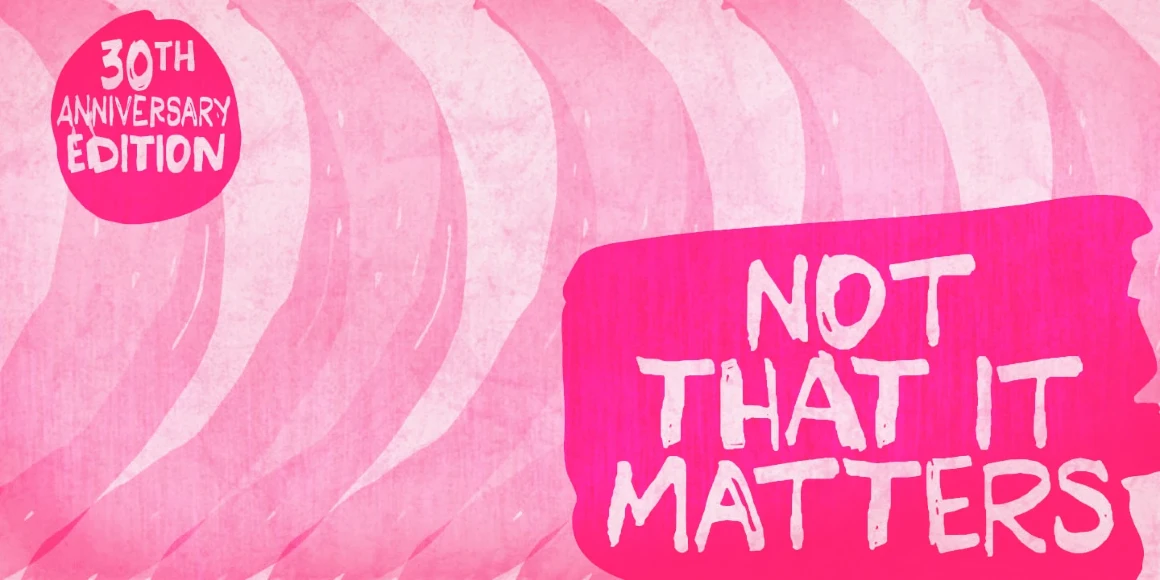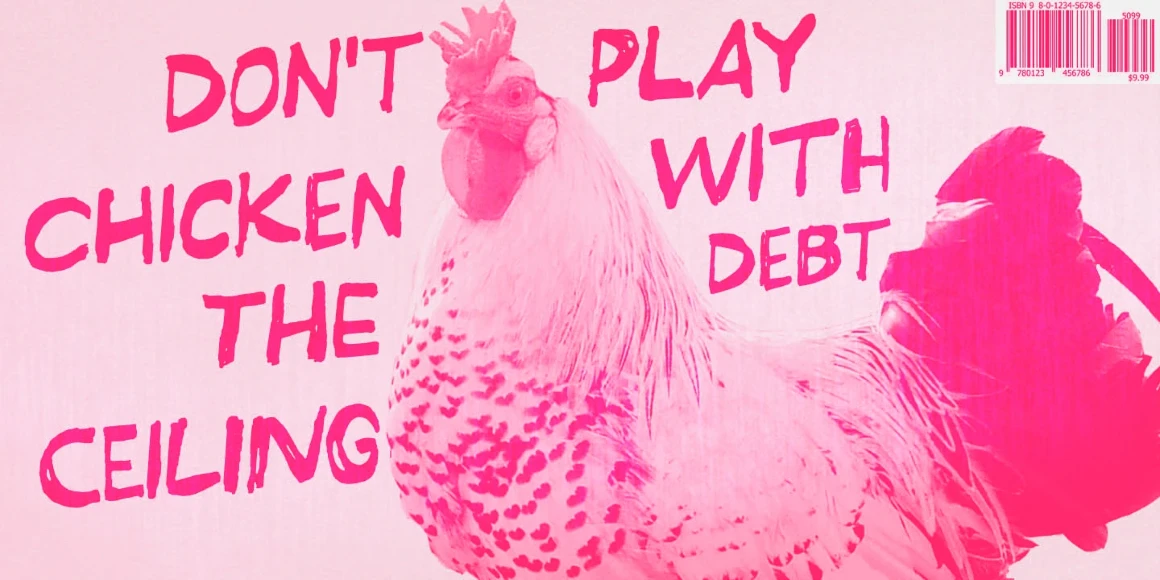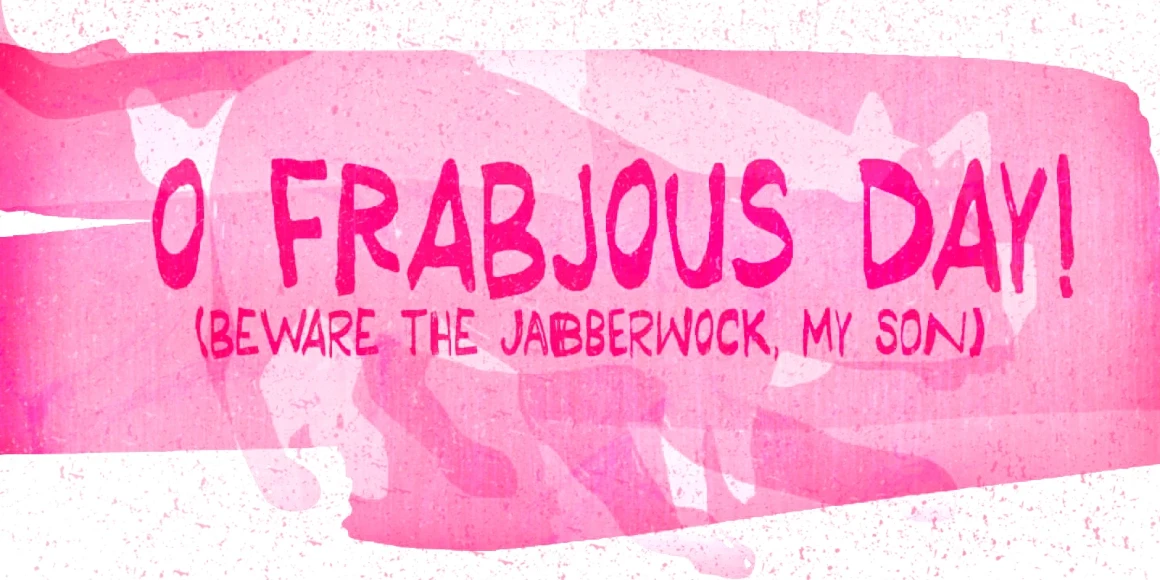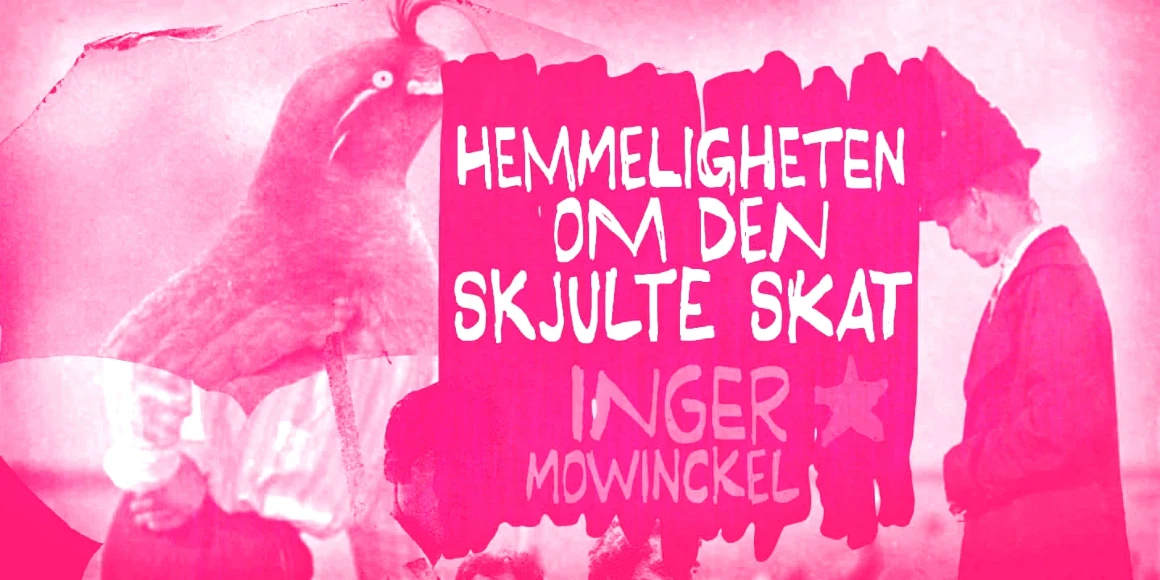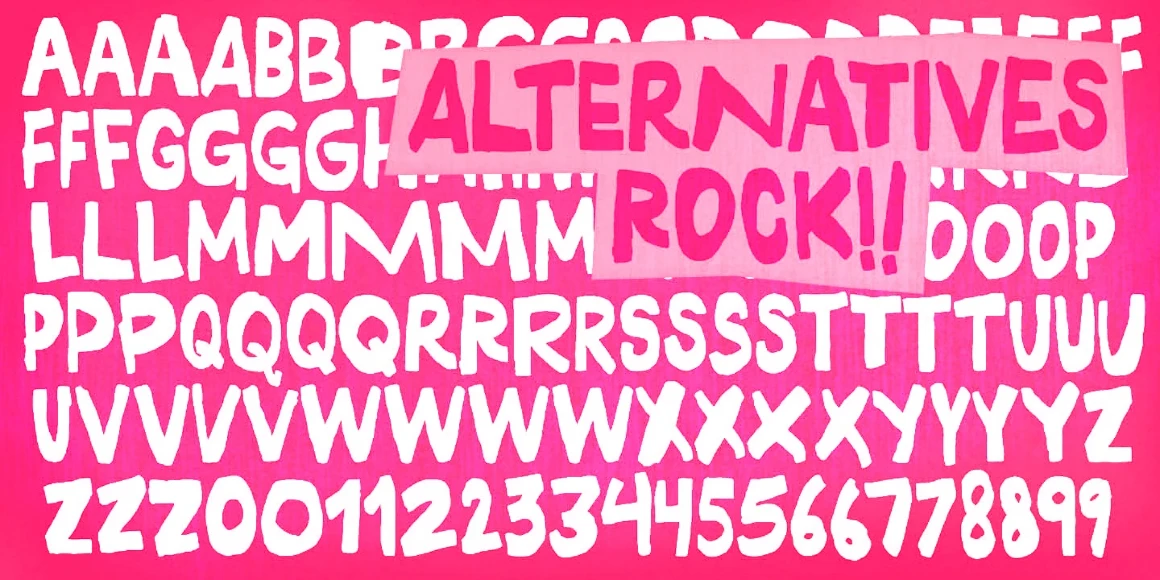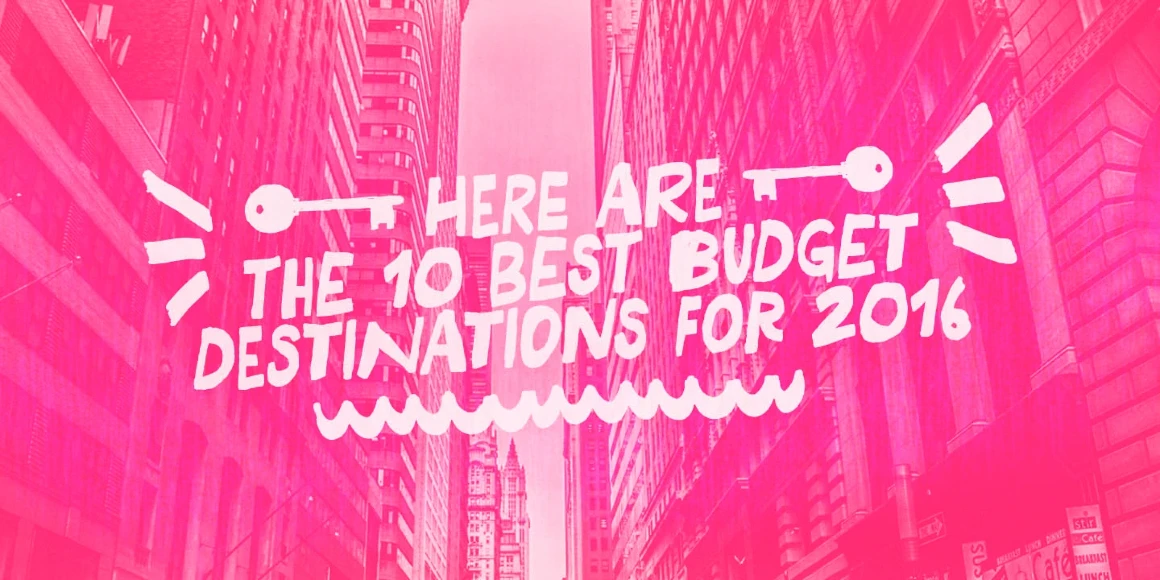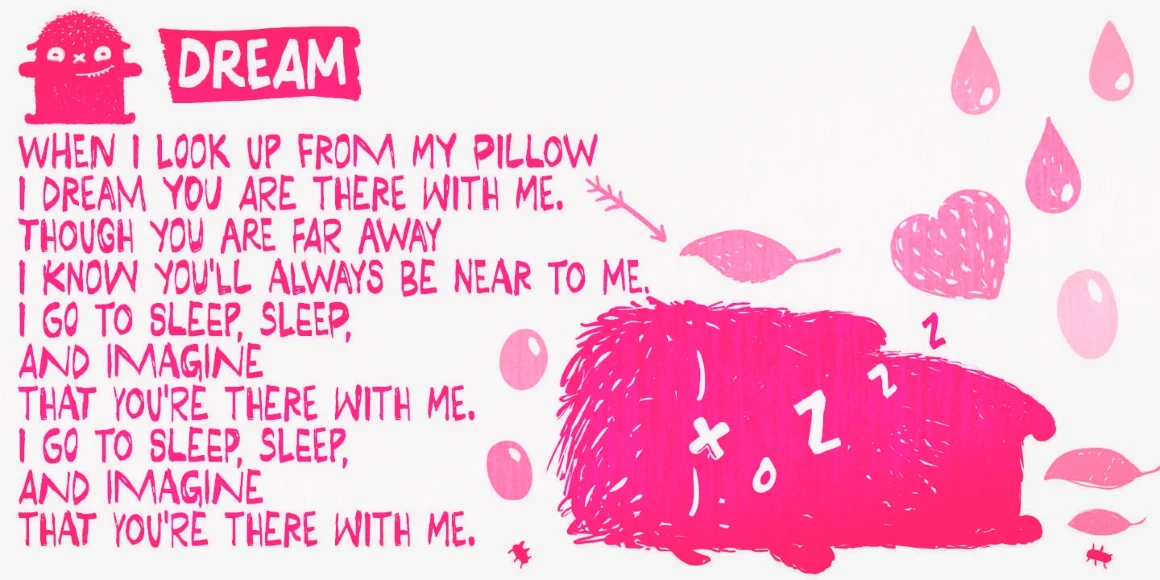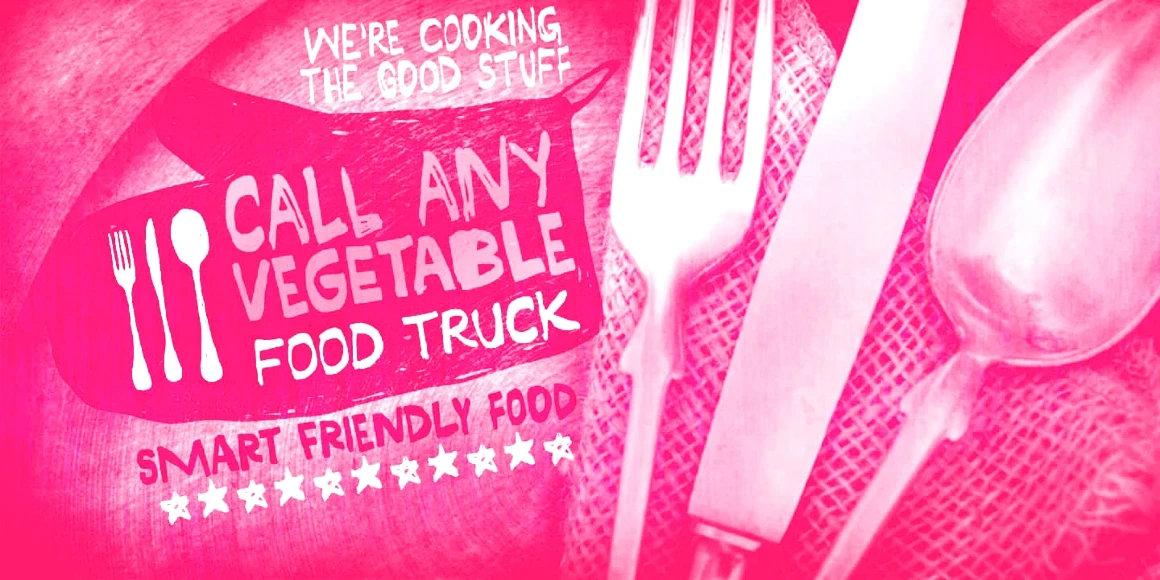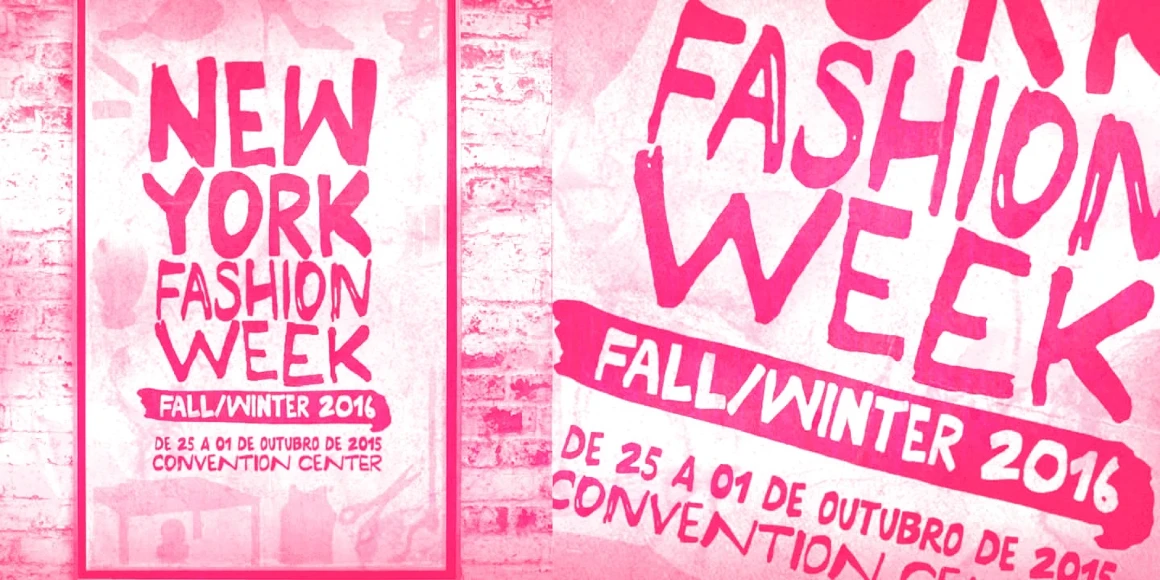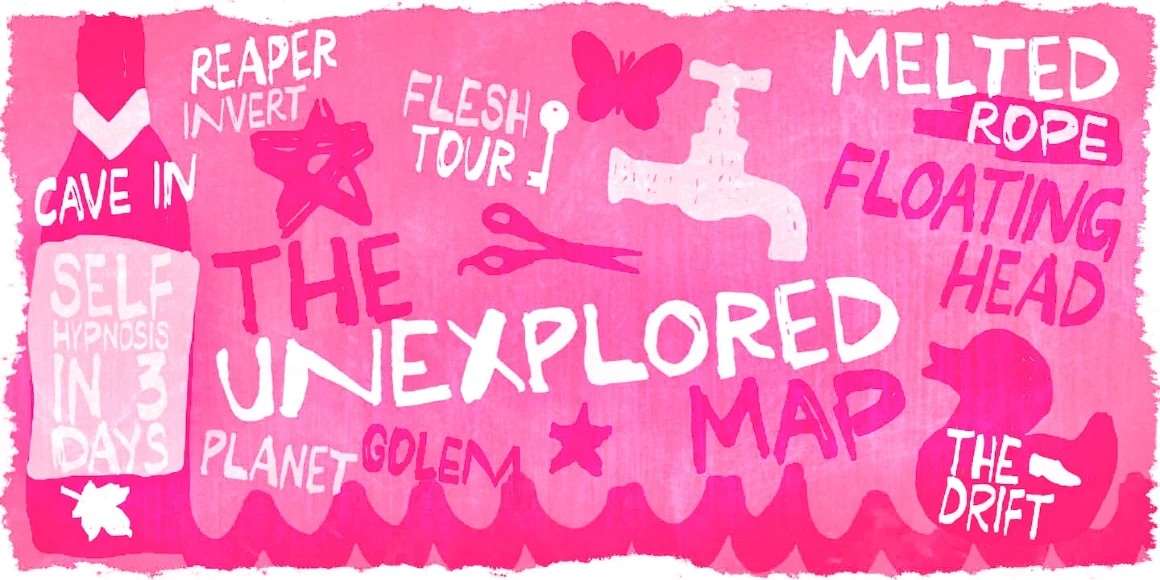
Somehand
Somehand Regular
Somehand Regular and Fast
Somehand Broad
Somehand Broad and Fast
Somehand Strong
Somehand Strong and Fast
Somehand Stuff
Somehand is a rough-and-ready hand-lettered font family with six expressive styles and a playful set of dingbats. Handsome in its very own way, more versatile than one might think. Each letter has four alternates, allowing for natural variation and a spontaneous rhythm in text. Whether you’re designing book covers, magazine layouts, or artisanal packaging, this family brings personality and energy to the page. Perfect for when you need a handwritten look that’s raw, lively, and full of character.